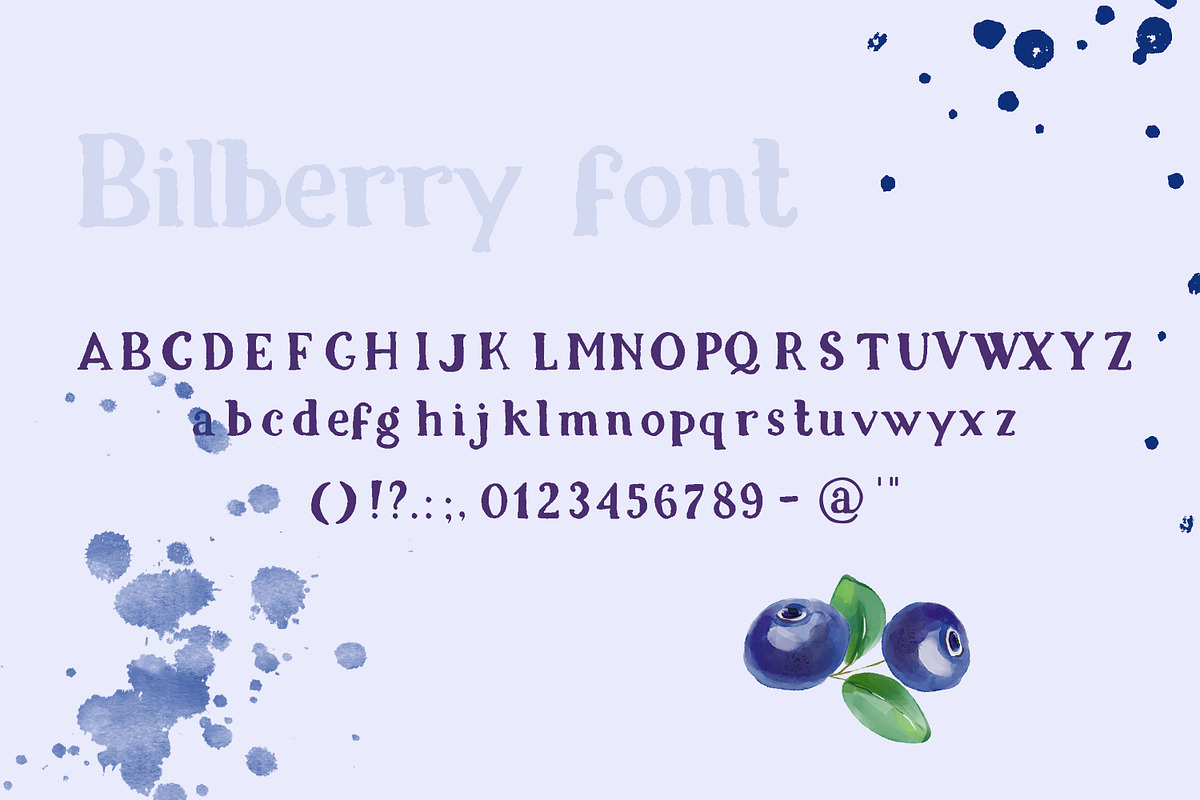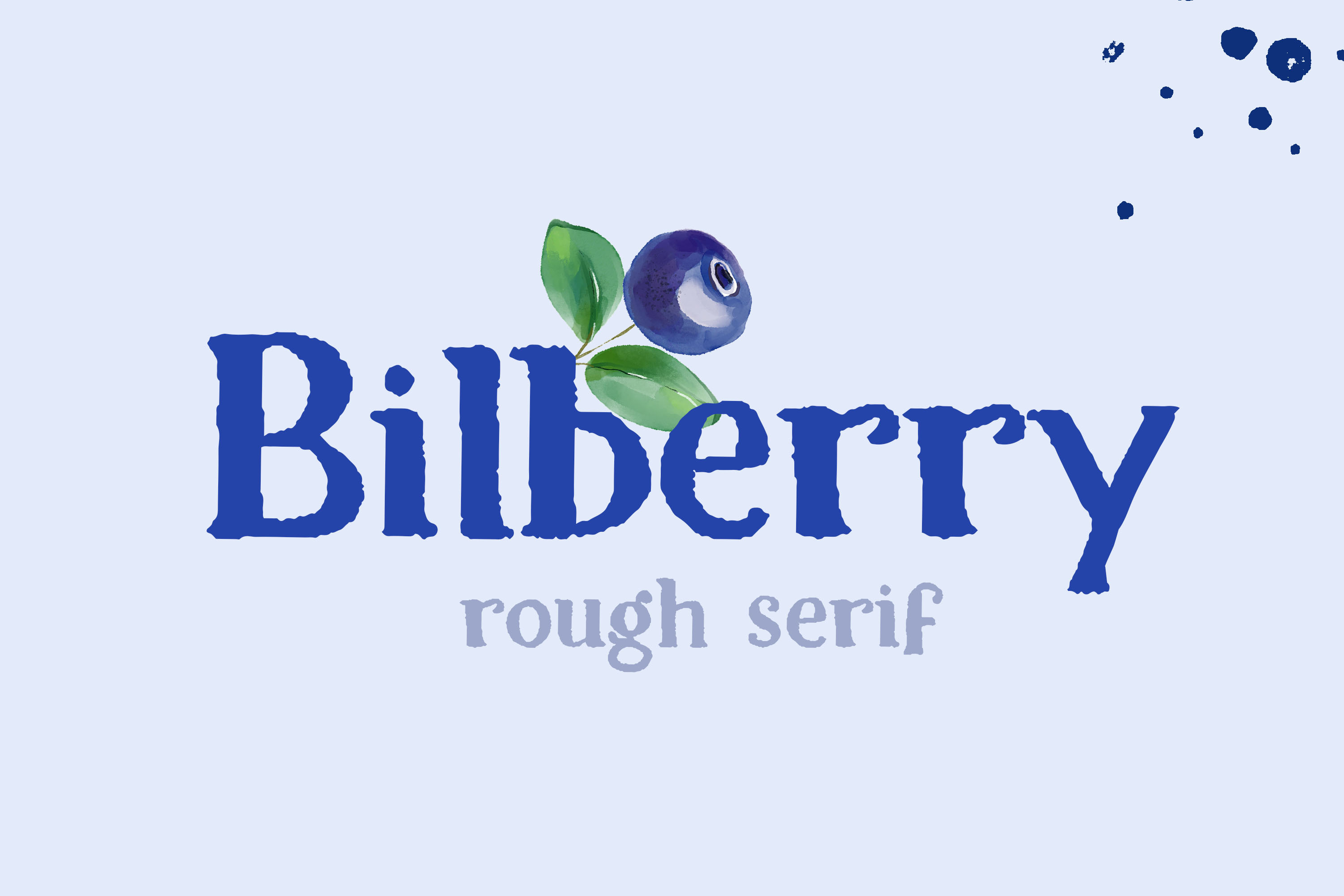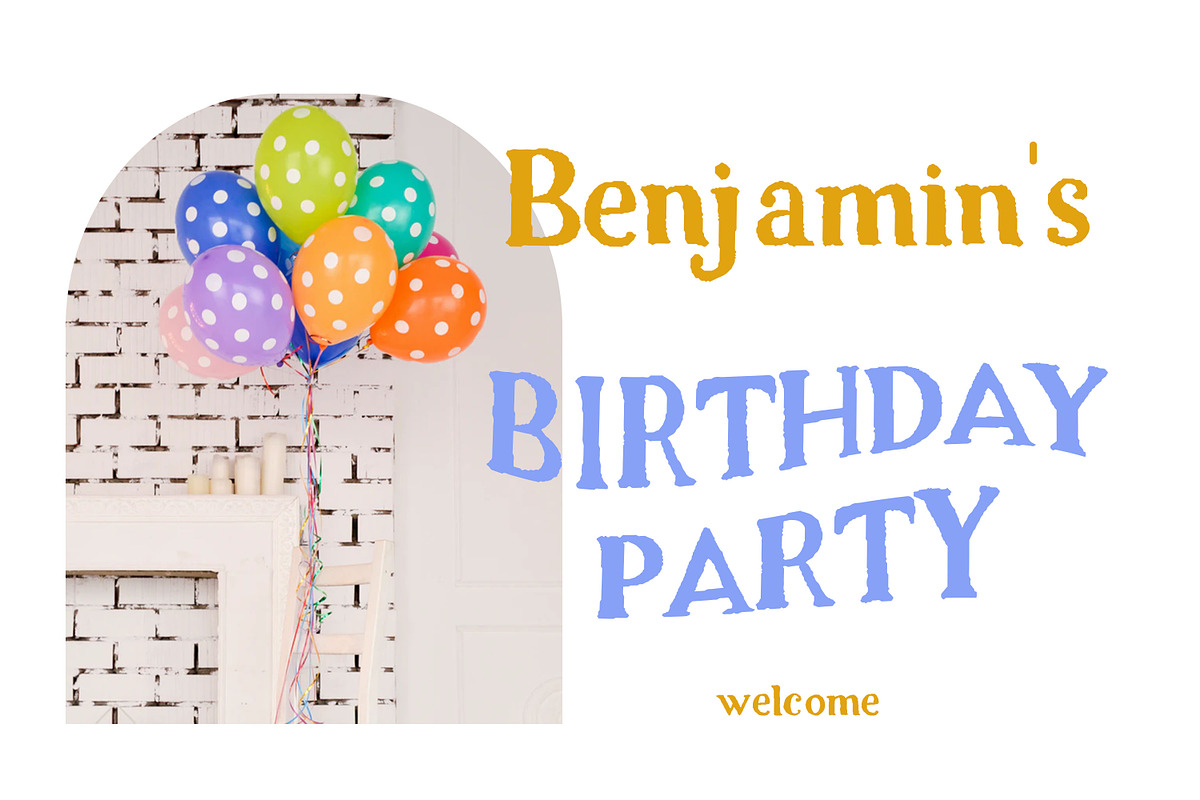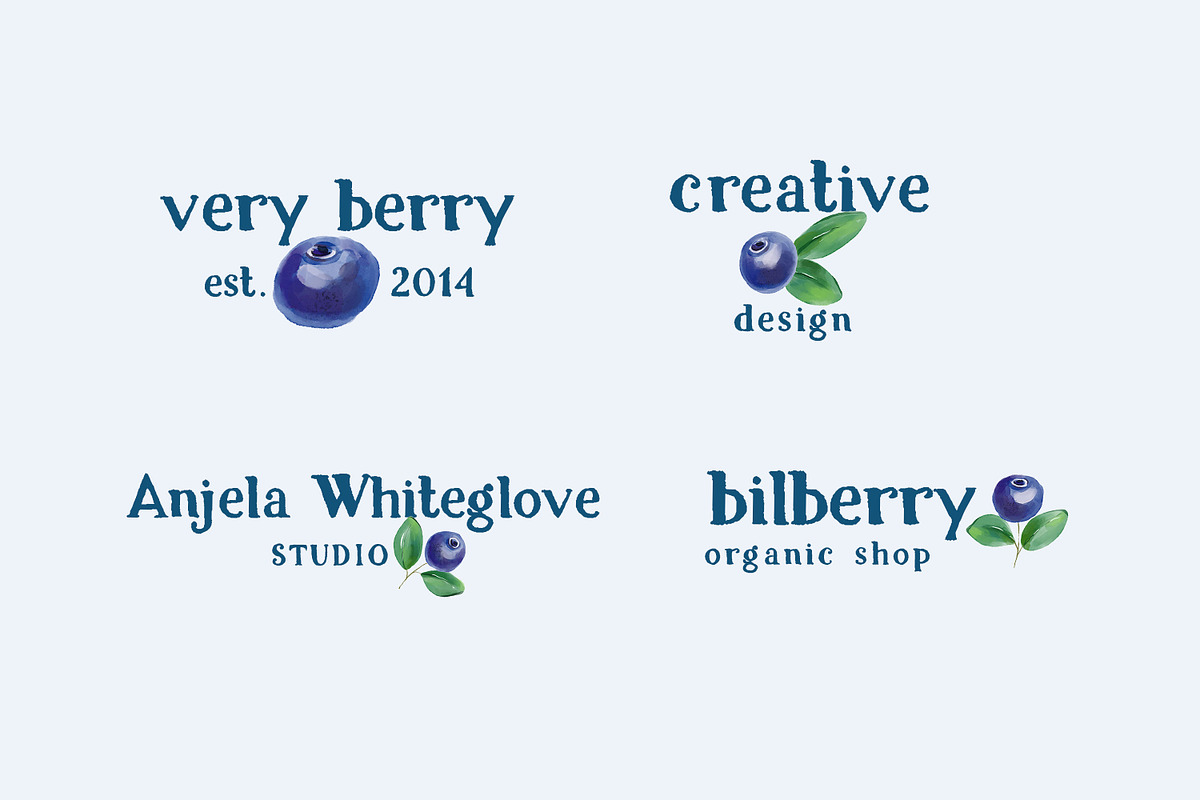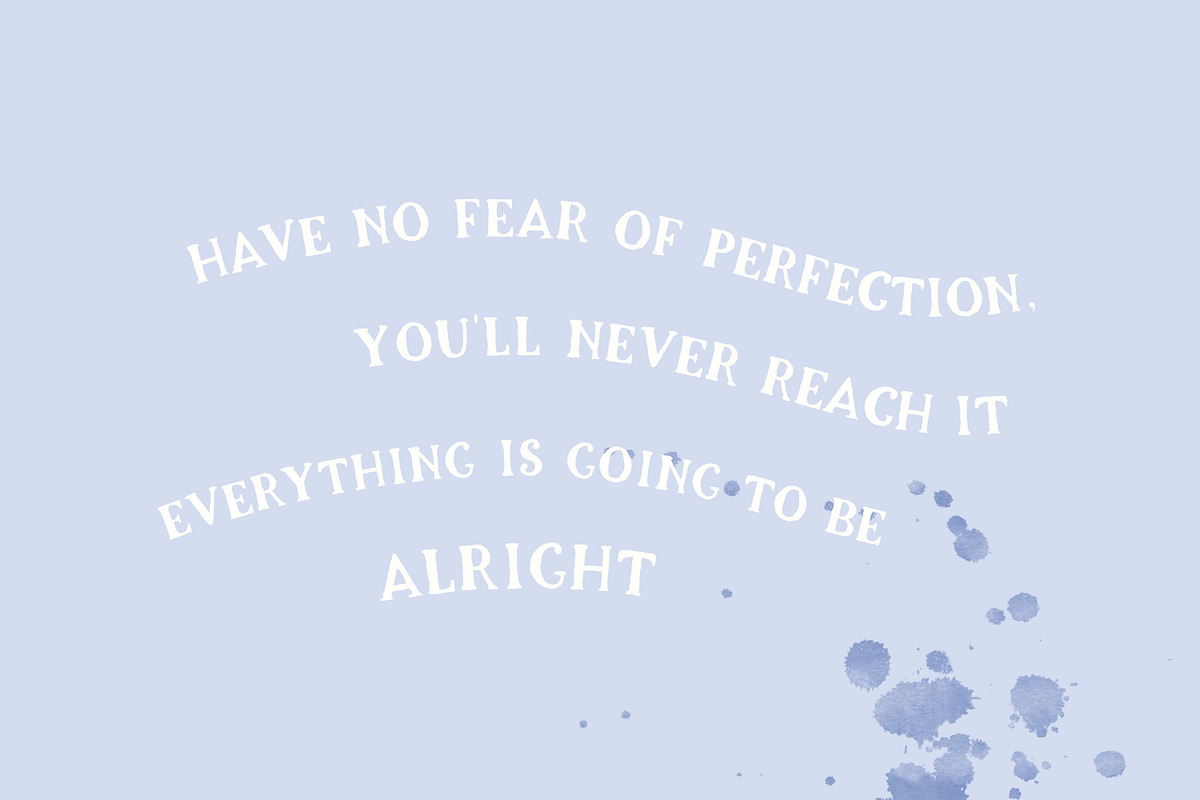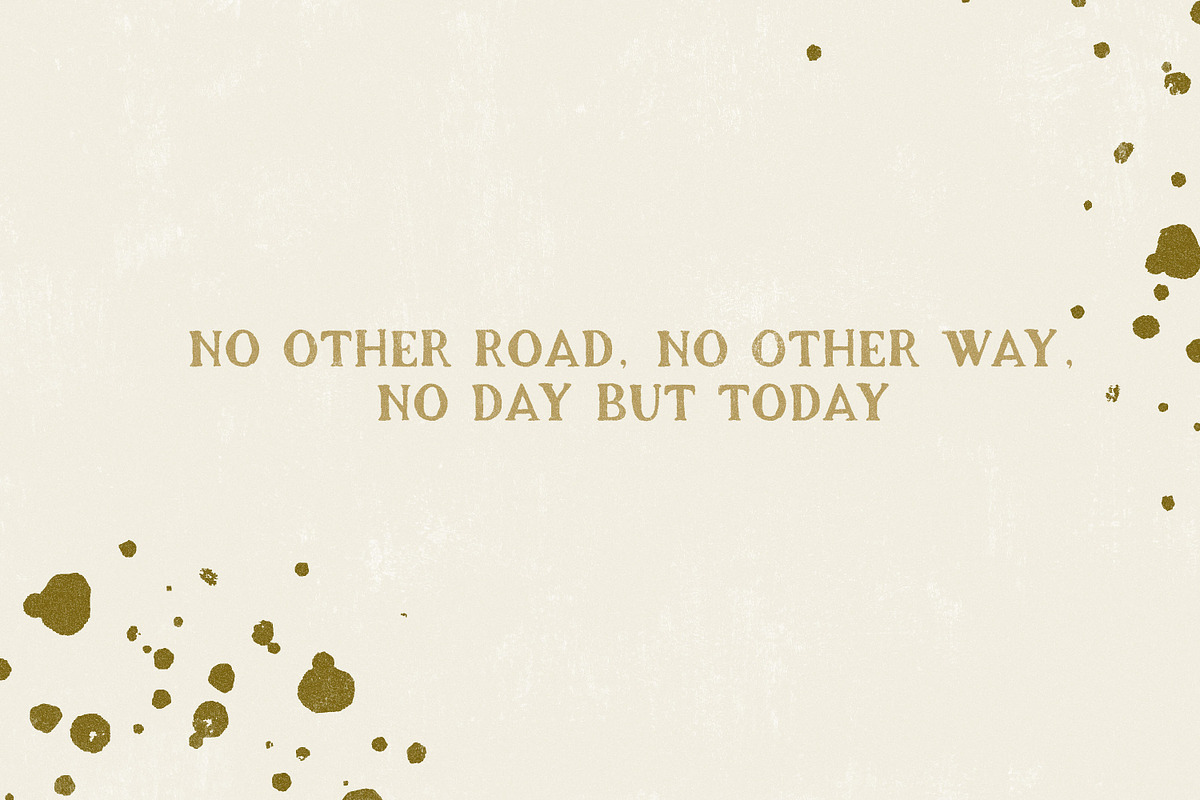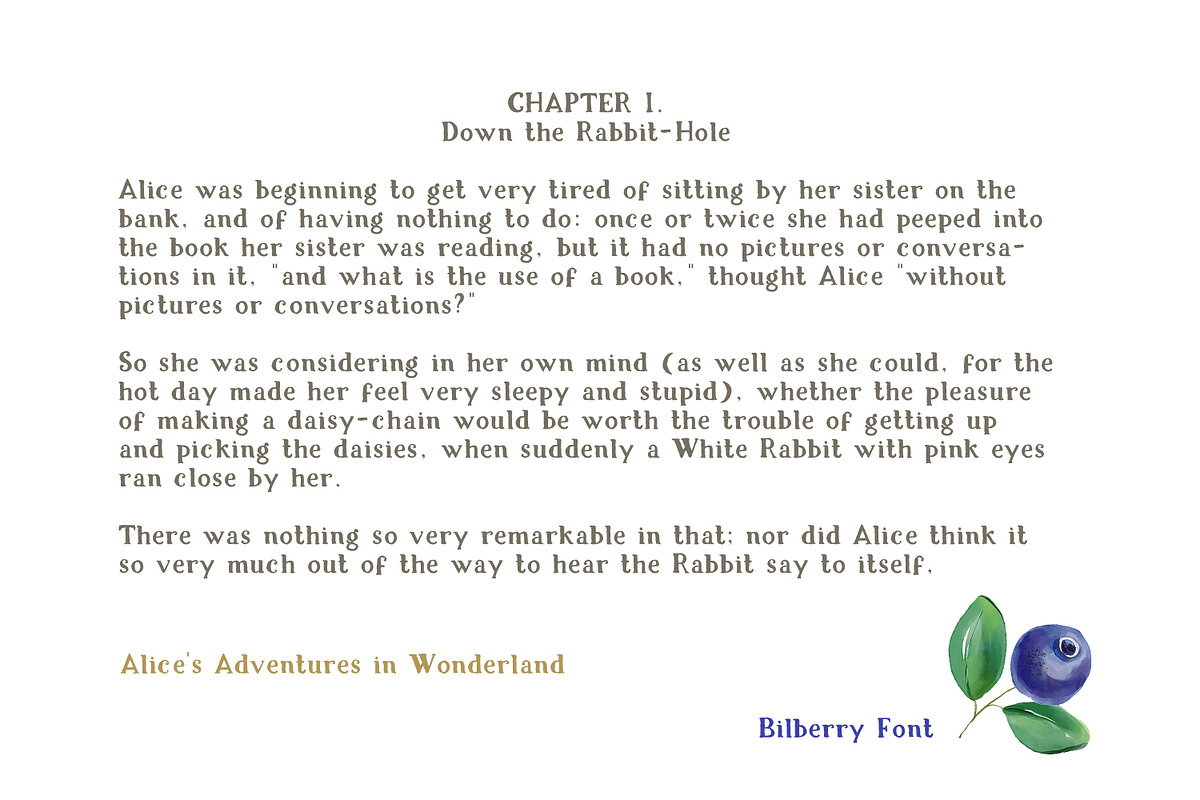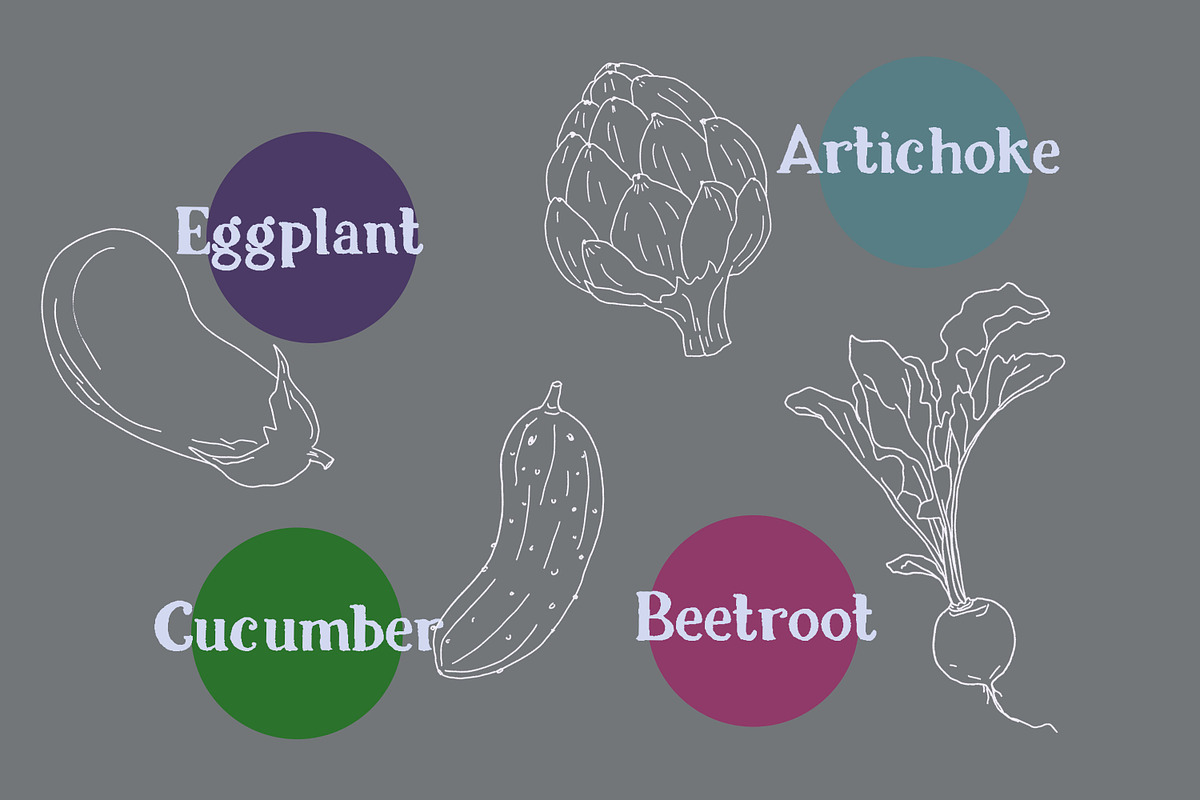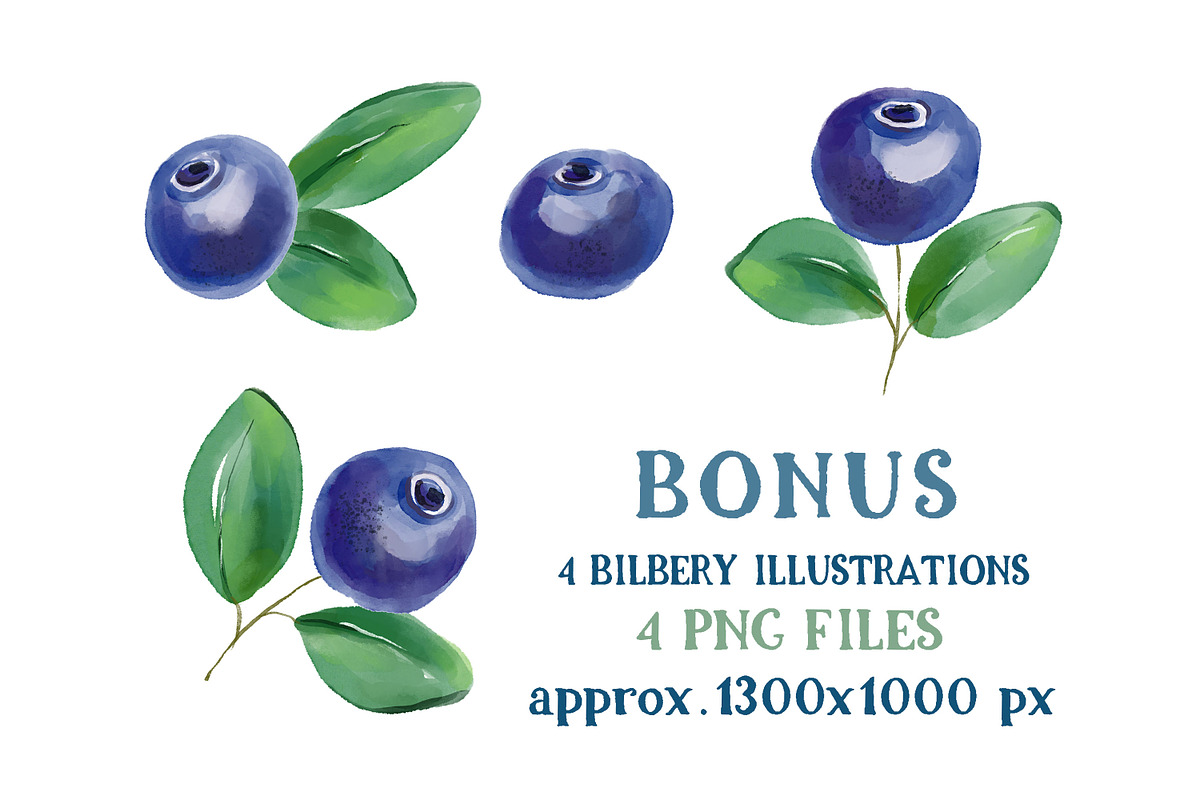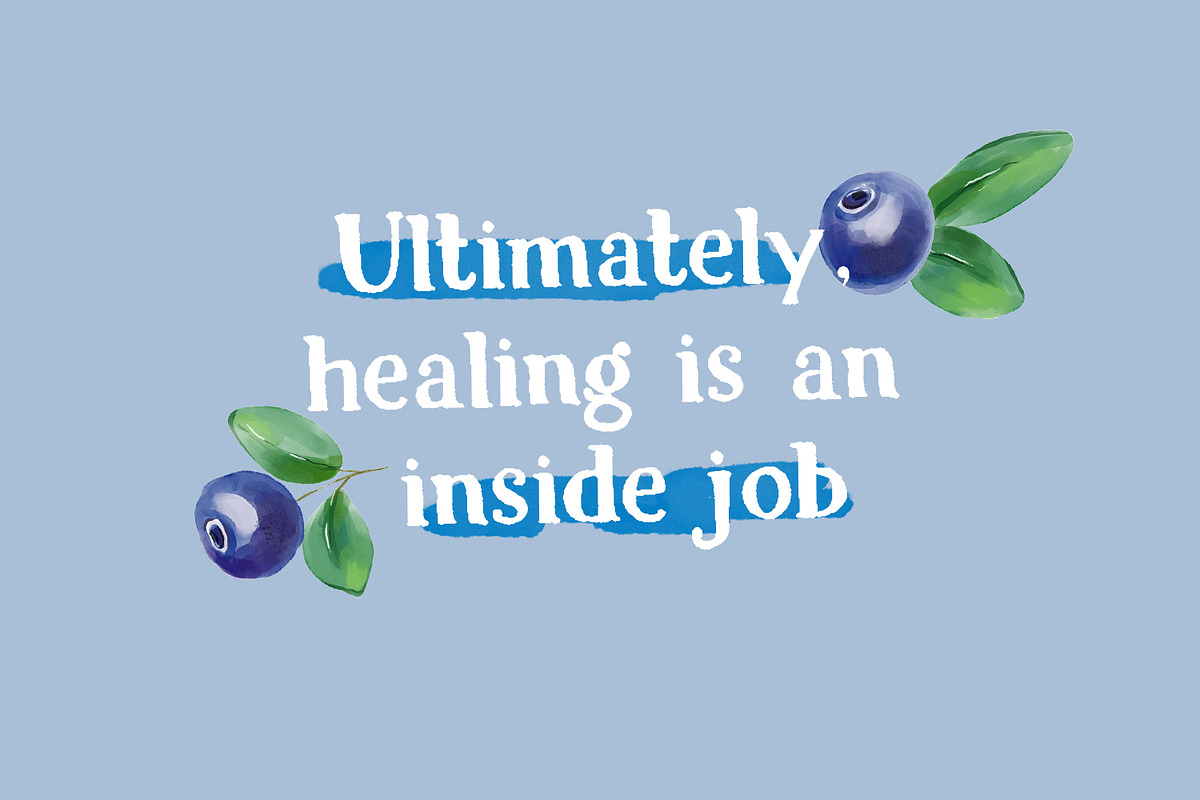
Bilberry rough serif font
Bilberry is a rough edged hand-lettered font + Exrta watercolor illustrations of bilberries. It is perfect for headings, album covers, flyers, greeting cards, product packaging, book covers, texts, printed quotes, logotype, apparel design, etc.
Basic English alphabet only.